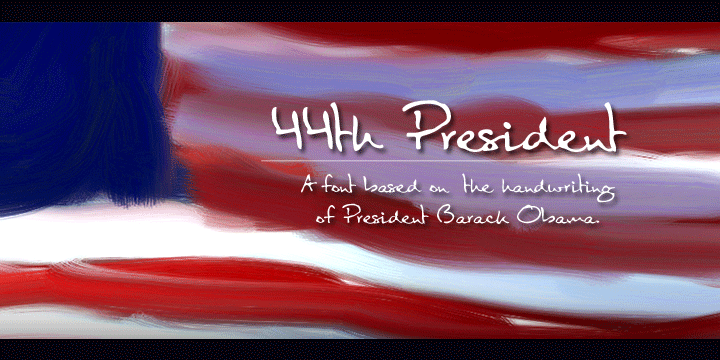
44th President™
Designed by: Jeremy Dooley
Designed when: 2008
Contained in Category: Script
“44th President” is based on the handwriting of President Barack Obama. A variety of sources were studied and the font produced from those references.
Barack Obama is the 8th left-handed American president. His left-handed stroke is quite obvious. As seen in recent legislation signing ceremonies, President Obama uses the “hooked” style of left-handed writing where the paper is held horizontally and the pen is “pulled” diagonally over the writing surface, and his signature is bold and elegant.
The script flows swiftly with a clear and fluid motion, and includes Central European, Baltic, Romanian and Western European character sets.